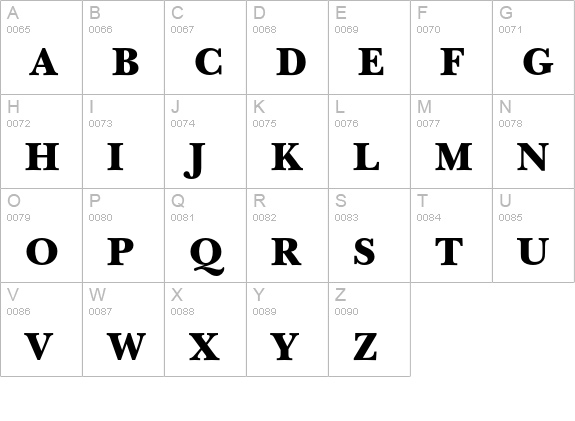
NewBaskervilleEF-Black is a maximum-weight, dramatic variant in the NewBaskervilleEF typeface family \xE2\x80\x94 well suited to maximum-impact headlines, posters, and packaging.
NewBaskervilleEF-Black font is a timeless and elegant typeface that exudes sophistication and class. Its bold and striking design makes a statement while maintaining a sense of luxury and refinement. The sharp serifs and clean lines of this font make it perfect for creating impactful headlines, titles, and logos. What sets NewBaskervilleEF-Black font apart is that it is available for free download at FontsMarket.com. This means that designers, creatives, and enthusiasts alike can access this premium font without any cost, making it a valuable addition to any font collection. Whether you're working on a branding project, editorial design, or any creative endeavor, NewBaskervilleEF-Black font is sure to elevate your work with its sophisticated and professional appearance. Download NewBaskervilleEF-Black font today from FontsMarket.com and experience the beauty and versatility of this timeless typeface in your projects.